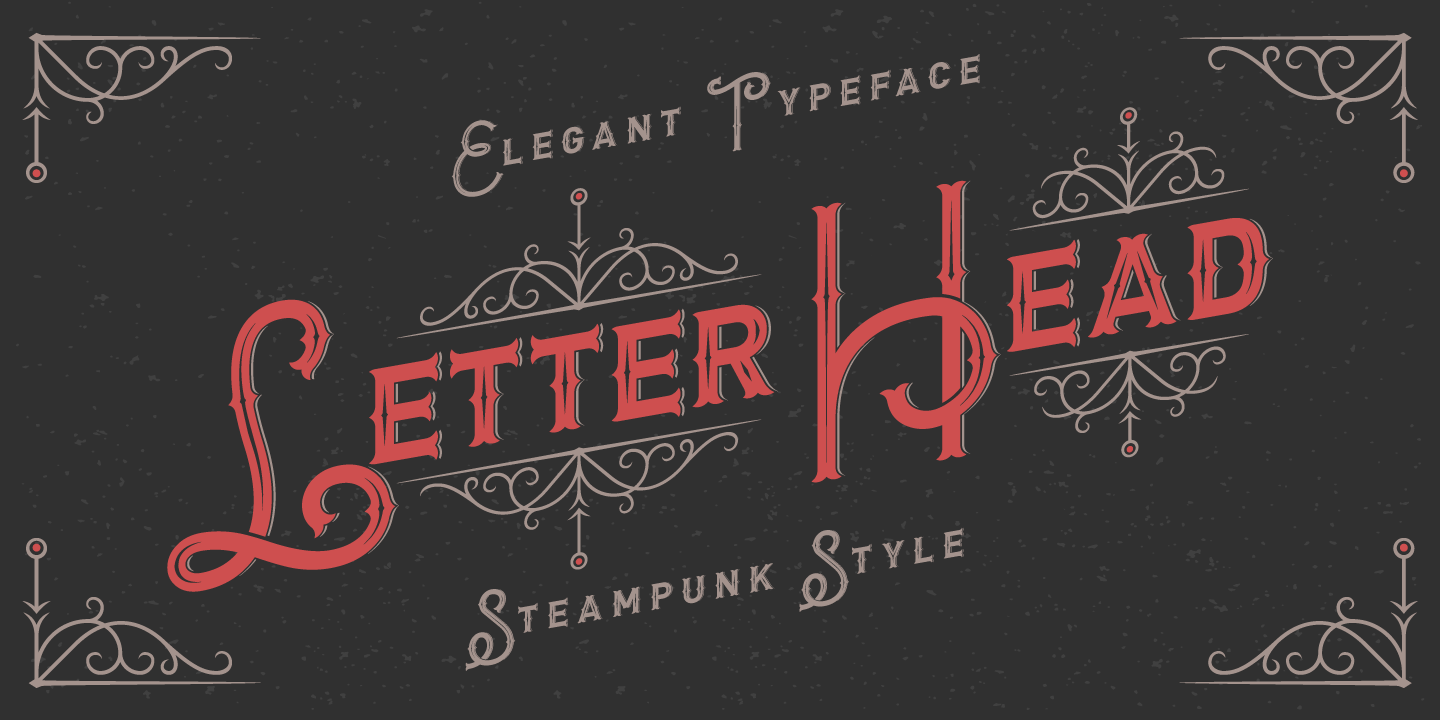
Letter Head Font is perfect for corporate letterheads, official business correspondence, professional law firm materials, executive communication templates, formal government documents, prestigious company stationery, diplomatic communications, institutional announcements, official memo formats, and authoritative business presentations.
What makes Letter Head Font exciting is its commanding authority and unwavering professionalism that establishes immediate credibility and institutional trust in every official communication. This distinguished typeface embodies the essence of corporate leadership with its formal character structure and executive proportions that convey competence, reliability, and the serious nature of important business matters. The font's authoritative personality creates an instant impression of organizational excellence and professional integrity that commands respect.
Letter Head Font family includes regular weight with professionally crafted character designs featuring executive proportions and corporate styling. The typeface maintains exceptional readability while showcasing its distinctive business-focused personality through formally designed letterforms that reflect the highest standards of professional communication and institutional authority.
Business executives consistently select Letter Head Font Free Download for projects requiring authentic corporate authority and professional credibility. This remarkable typeface brings the power of executive communication to brand materials, combining formal elegance with institutional reliability to create trustworthy business experiences. The professionally designed characters ensure authoritative positioning across all applications, making it essential for corporations, legal firms, and any organization seeking to communicate the professional excellence and institutional authority that defines successful business leadership through Letter Head Font Free Download.